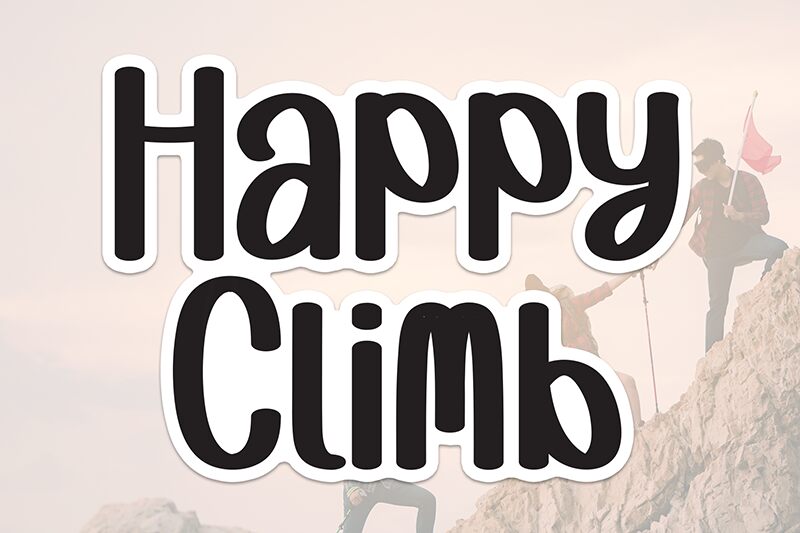
Happy Climb
Happy Climb font, designed by Andi Moz, is a free handwritten font with a cheerful mood that comes together with the help of bouncy lines and rounded characters. This is presented in medium weight and regular style which all maintain a pleasant balance between the negative space within letters and that which surrounds the text.
Use Happy Climb for stationery and branding designs or typography-based logotypes. Create packaging presentations for crayon brands, invitations or greeting cards, typographic posters, children’s books covers and other forms of publications. Use with theatre play billboards, tickets for hobby-related events, social media posts.